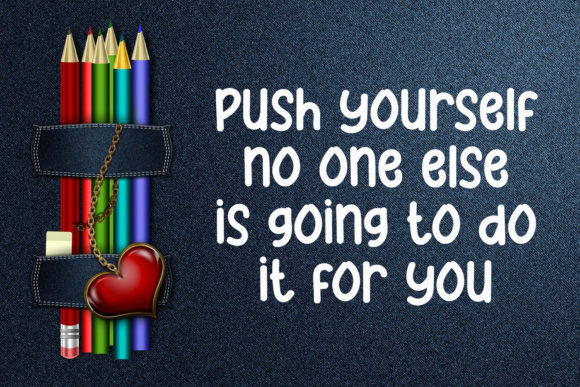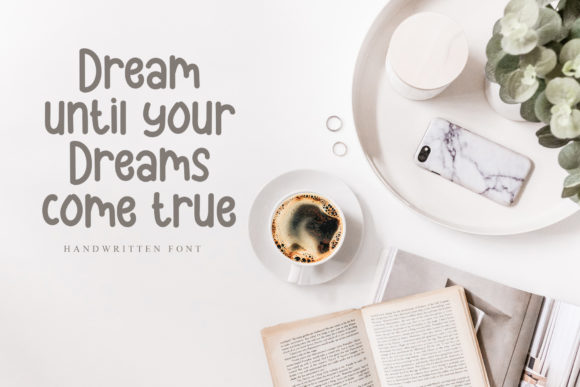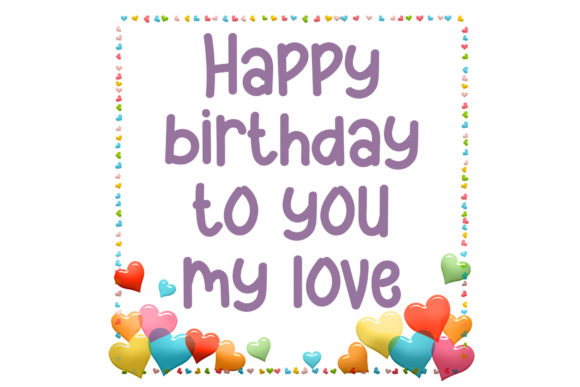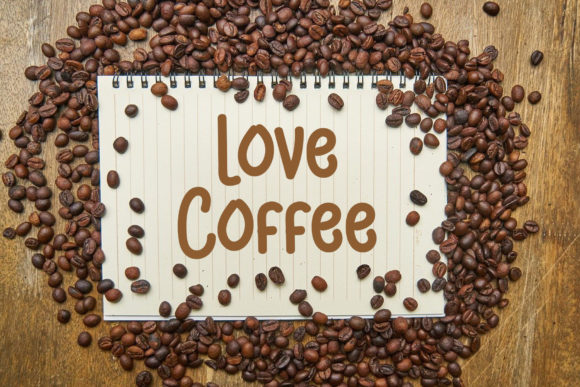
Friends Forever Font
About Friends Forever Font
Friends Forever is a cute, clean and simple handwritten font. It can easily be matched to an incredibly large set of projects, so add it to your creative ideas and notice how it makes them stand out!